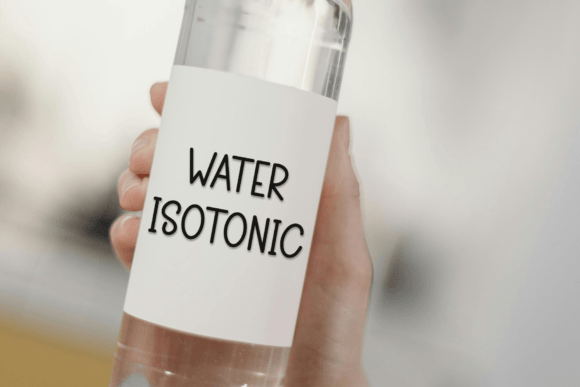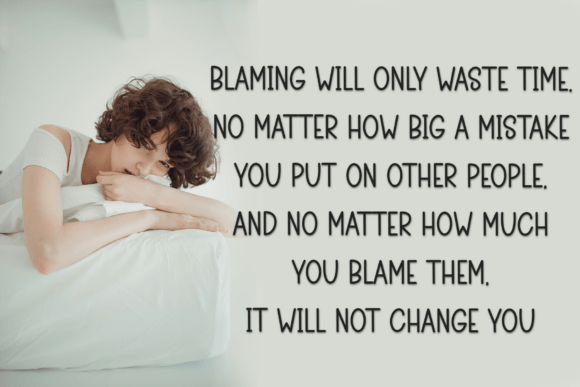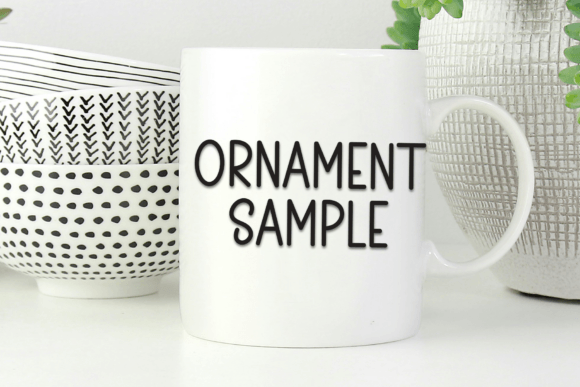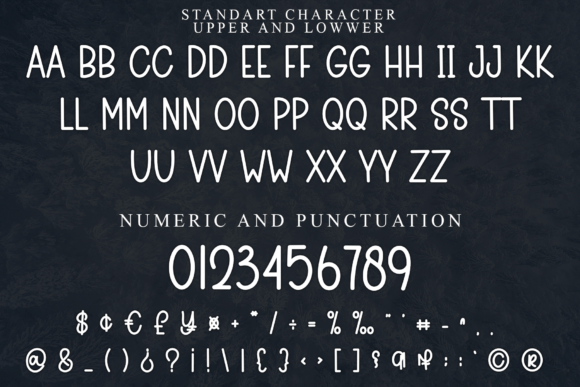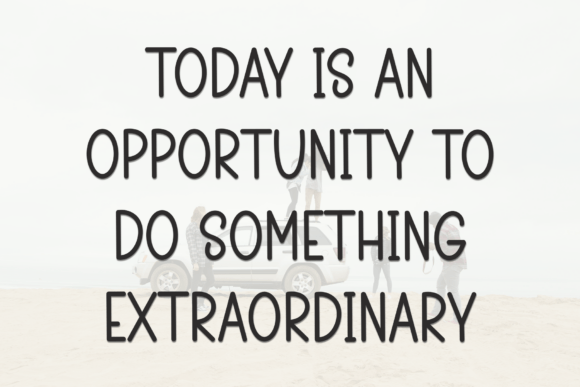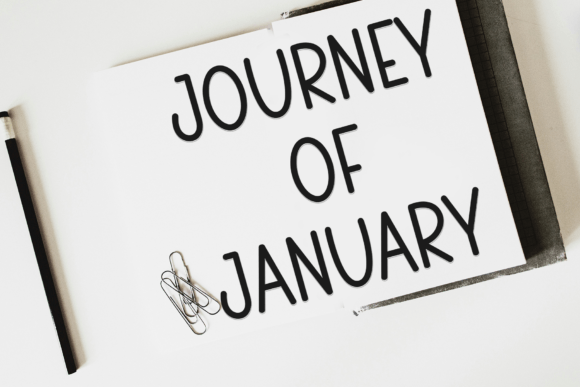
Introduction to Photo January Font
Photo January is a tall, handwritten font with a sleek and modern style.
It has a clean, easy-to-read look with unique letterforms that give it a personal and artistic touch .
Key Features of Photo January Font
Why Choose Photo January Font?
Photo January Font offers exceptional quality and versatility, making it a valuable addition to your design toolkit. Whether you’re creating for personal projects or commercial use, Photo January Font delivers professional results.